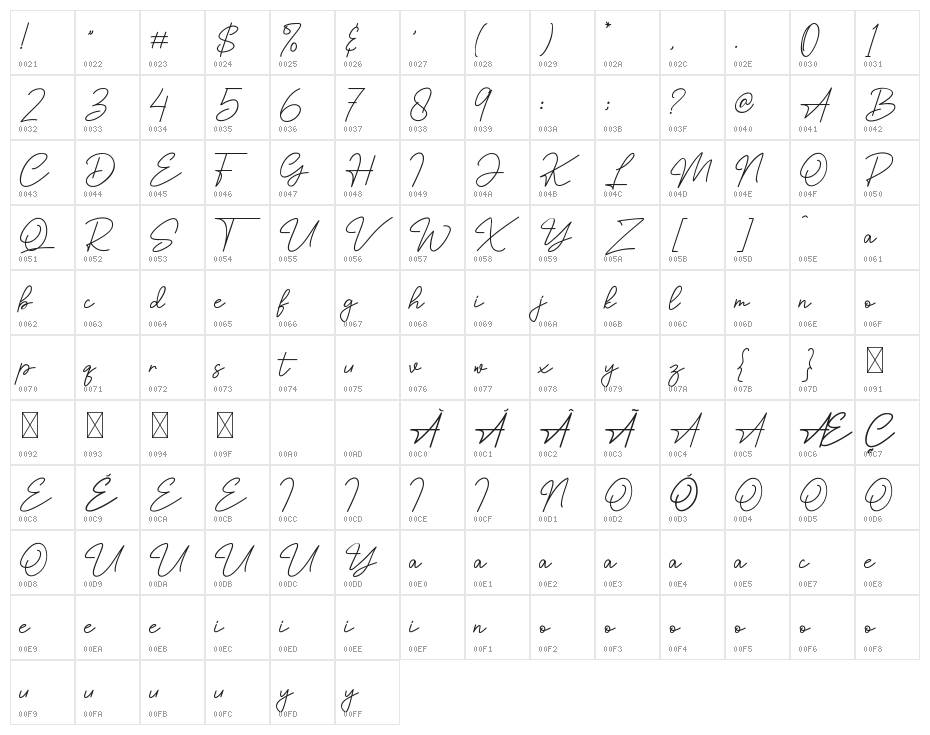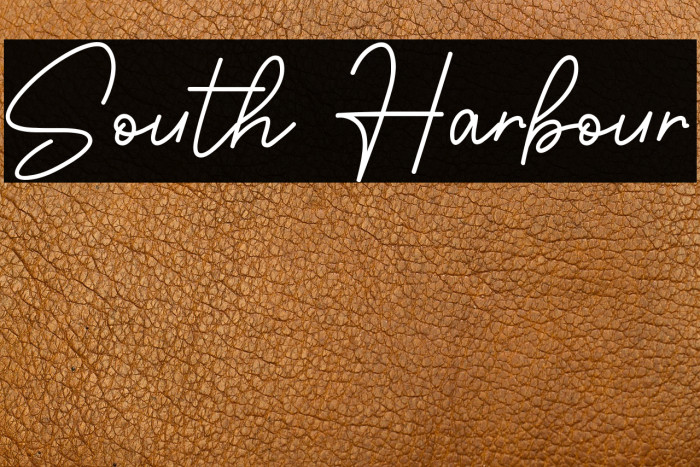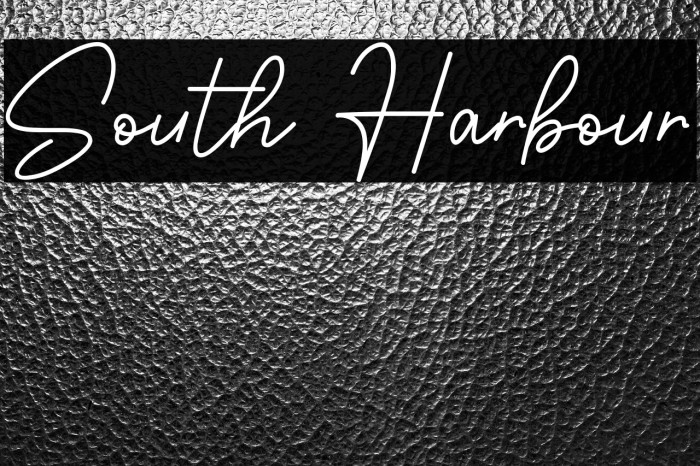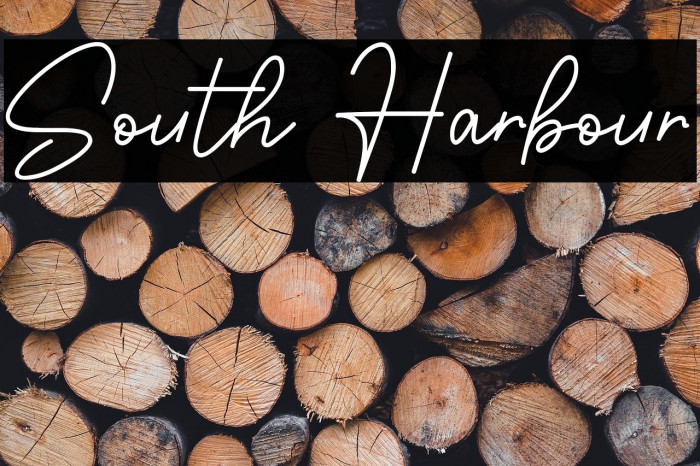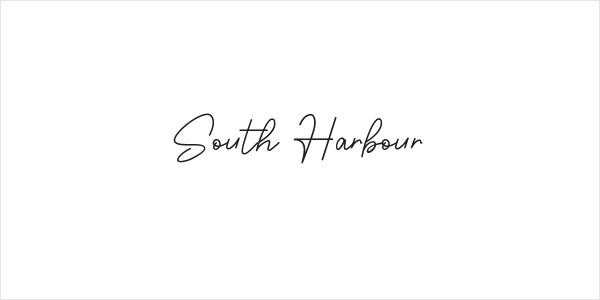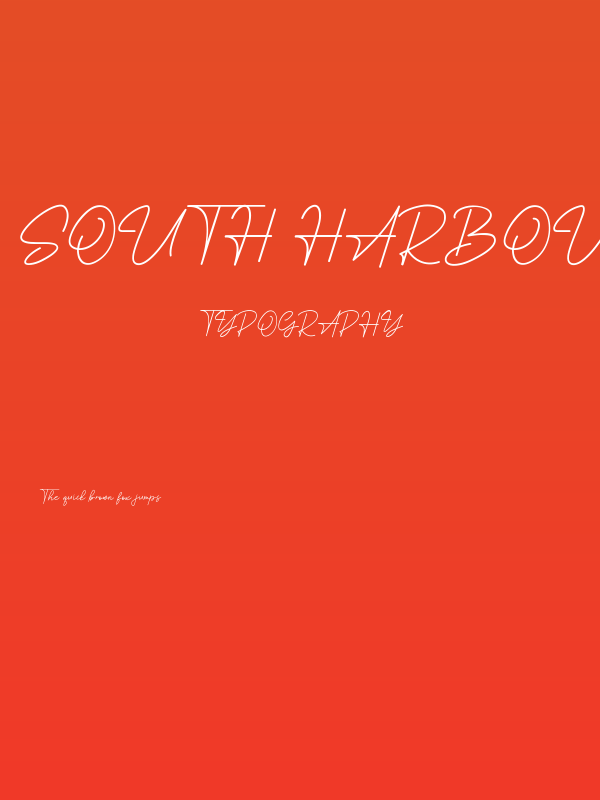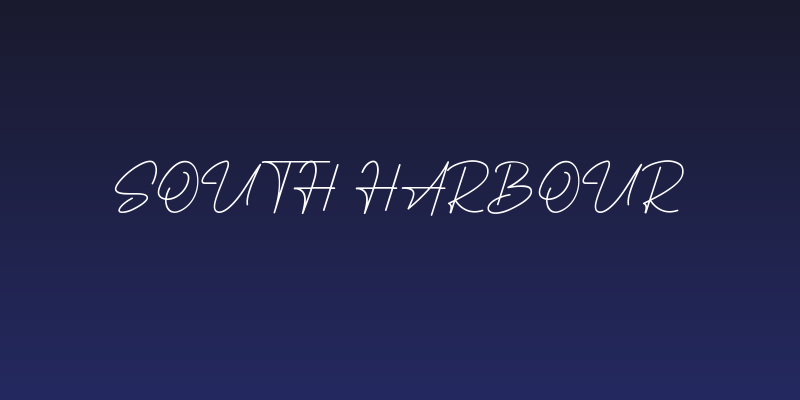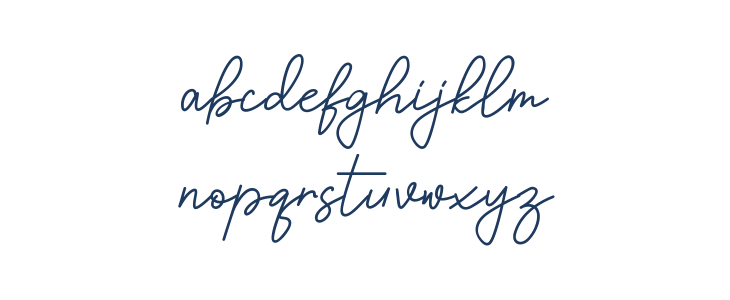
South Harbour Font
South Harbour Description
This font features a fluid, cursive style that exudes elegance and sophistication. The characters are connected in a smooth, flowing manner, reminiscent of traditional handwriting. The uppercase letters are tall and slightly slanted, giving a sense of movement and grace. The lowercase letters maintain a consistent flow, with loops and curves that enhance the handwritten aesthetic. Numbers and special characters follow the same cursive style, ensuring uniformity across all elements. The overall appearance is both stylish and readable, making it suitable for a variety of creative applications.